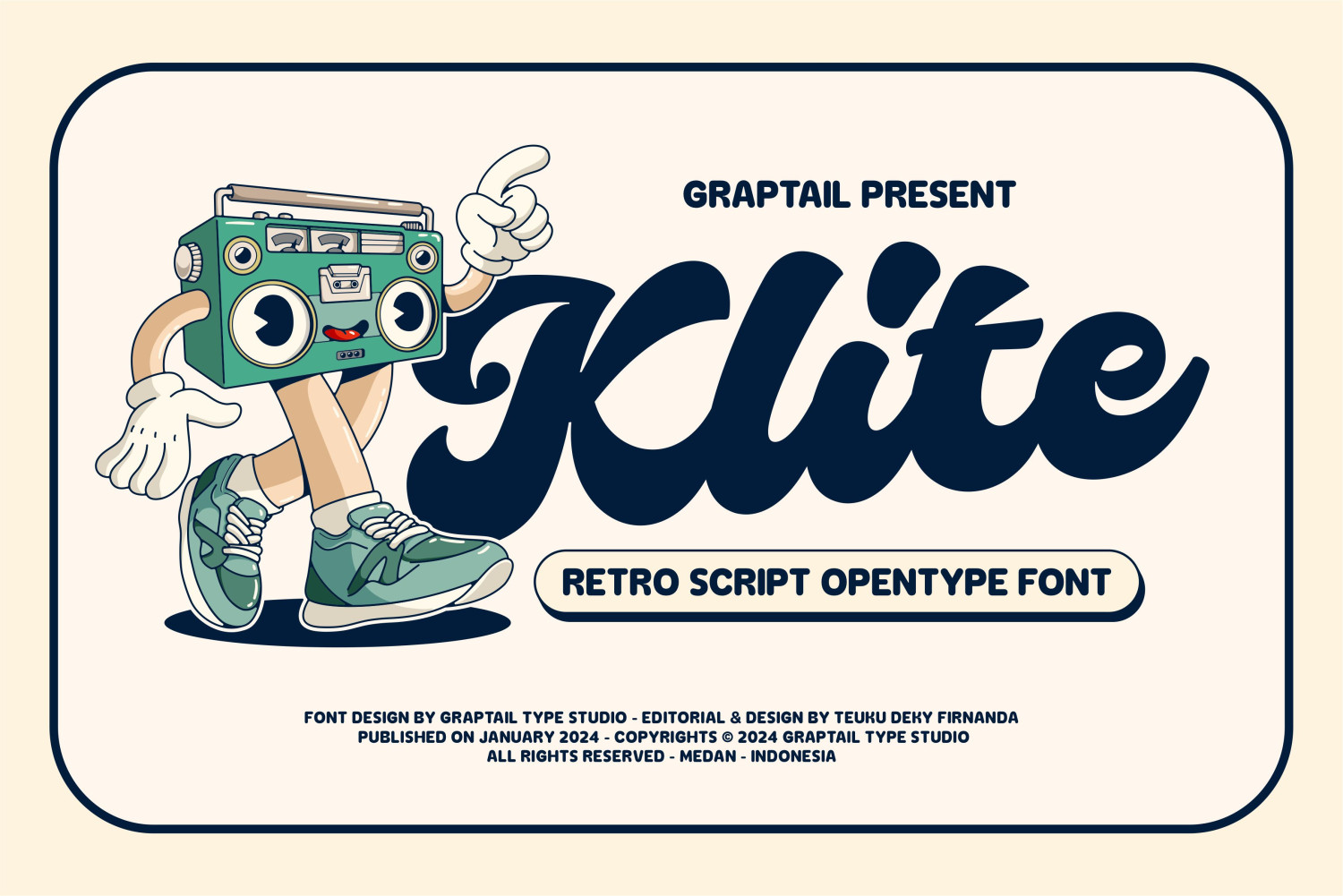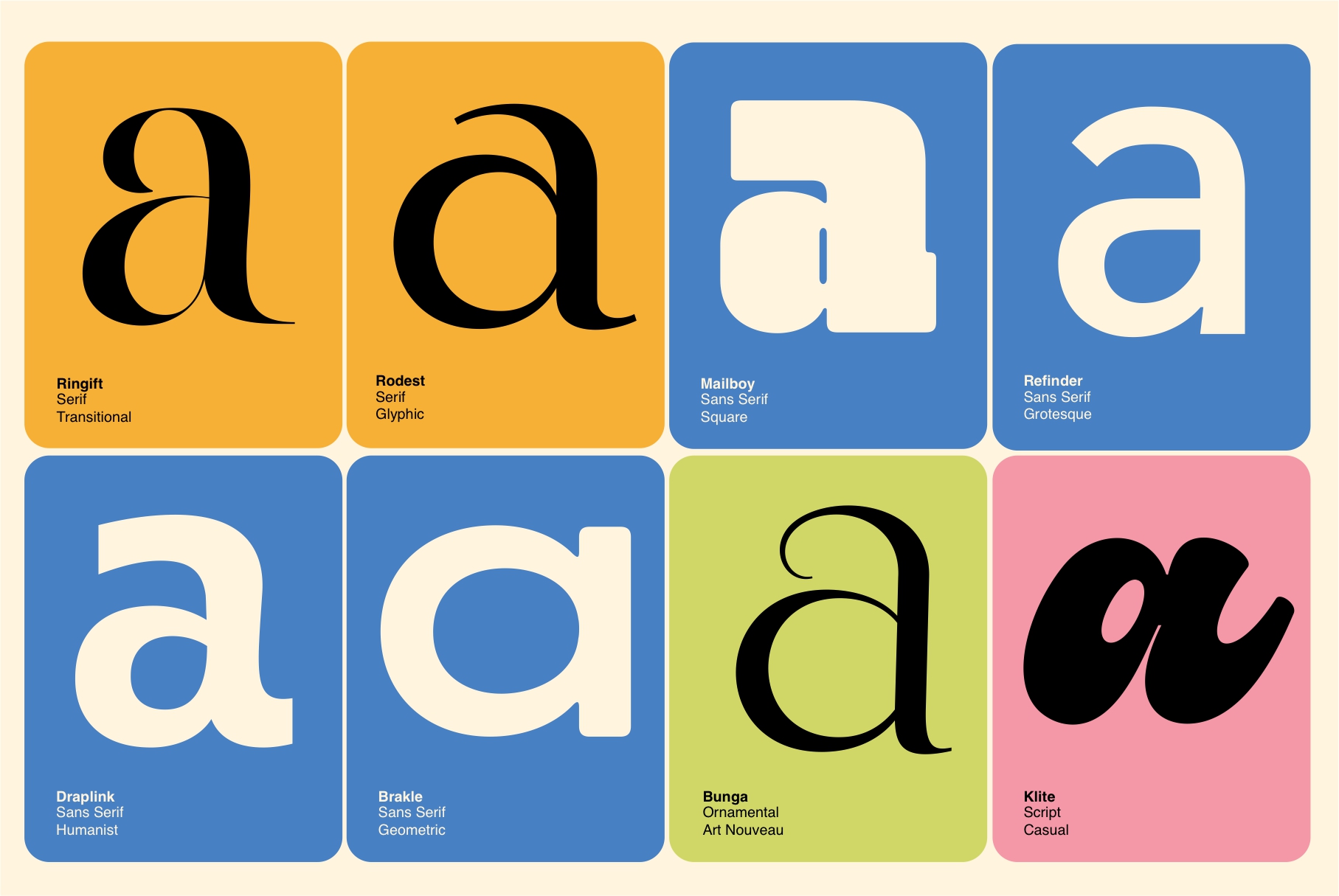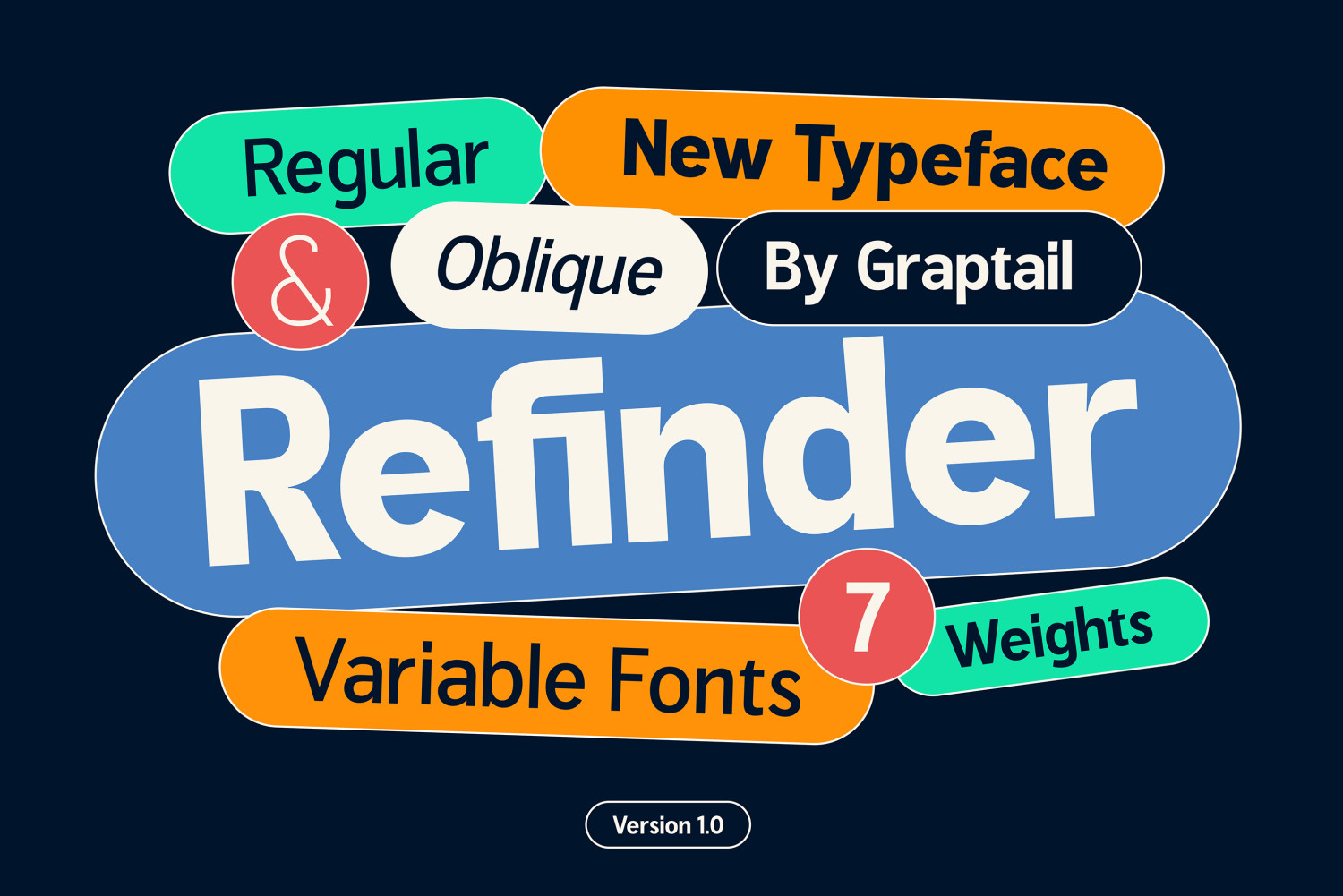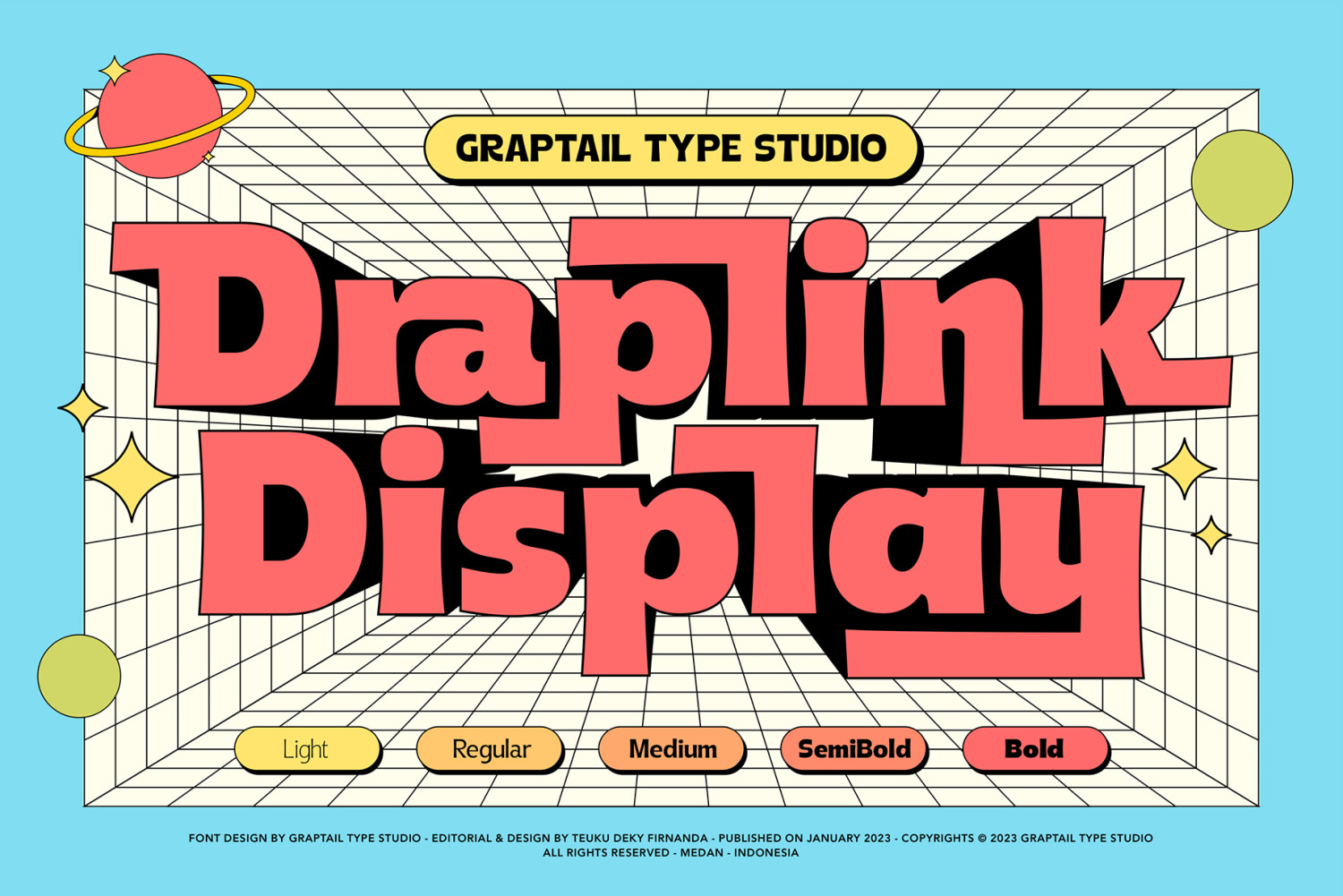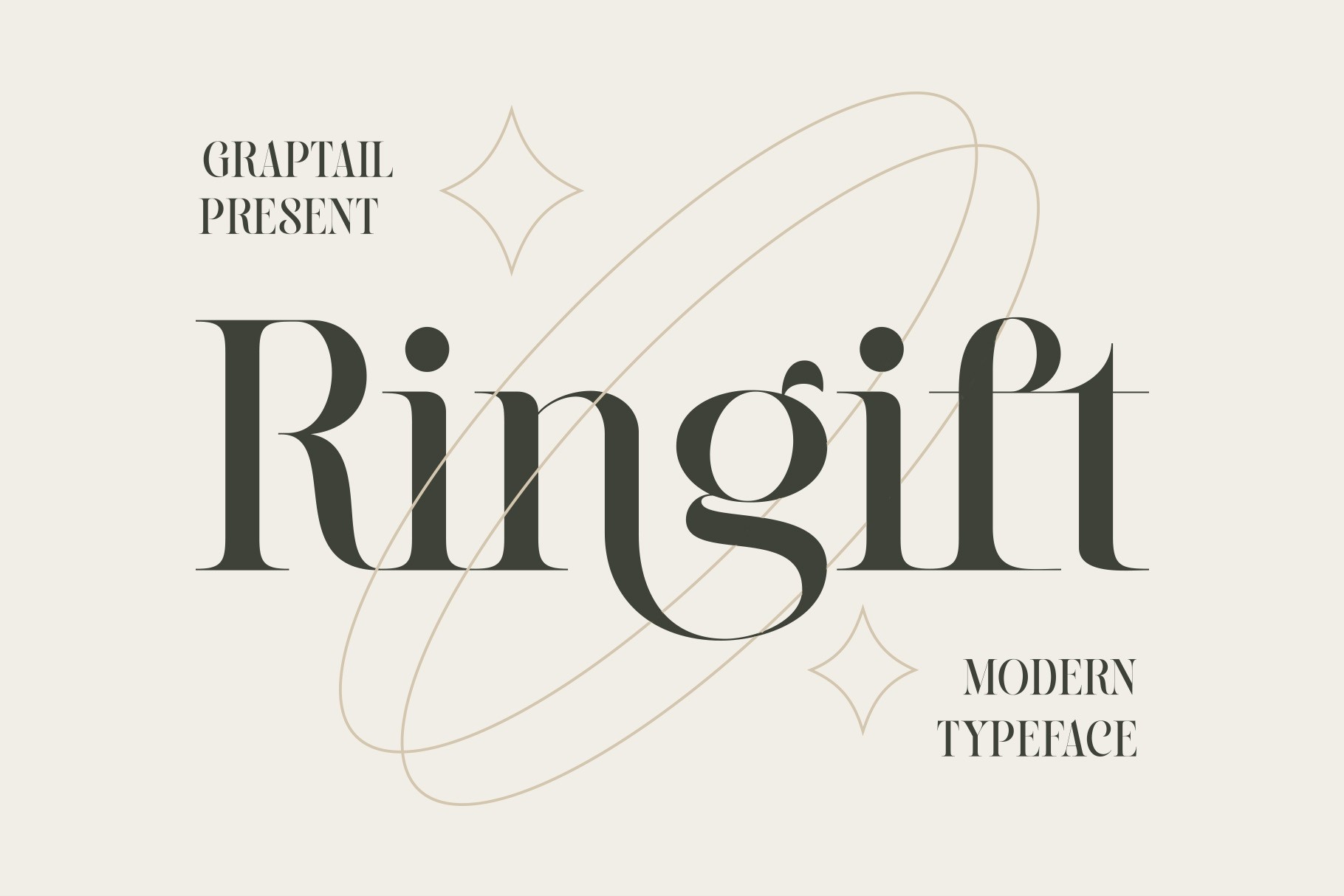
Typeface Classification: Understanding the Variety of Fonts in Design
In the world of graphic design and typography, typeface is a key element that plays a vital role in visually conveying messages. But did you know that typefaces come in various types and classifications? Understanding typeface classification will help you choose the right font for your diverse design needs.
What is a Typeface?
Before discussing typeface classification, it's important to understand what a typeface is. A typeface is the visual design of a family of letters. It includes various characters such as letters (uppercase and lowercase), numbers, punctuation marks, and symbols. Each typeface has unique characteristics that distinguish it from other typefaces.
Why is Typeface Classification Important?
Typeface classification helps designers and typographers to:
Commonly Known Typeface Classifications
There are several commonly known typeface classification systems. One of them is a classification based on the presence or absence of serifs on the letters. Here are some of the most common typeface classifications:
1. Ringift: Serif typefaces have distinctive small lines or strokes called "serifs" at the ends of their letters. Serifs are often associated with a classic, formal, and elegant impression.
2. Refinder: Sans-serif typefaces do not have serifs at the ends of their letters. Sans-serifs are often associated with a modern, clean, and minimalist impression.
3. Klite: Script typefaces resemble handwriting or calligraphy. Scripts are often used for designs that require a personal, elegant, or romantic touch.
4. Draplink: Display typefaces have unique and decorative designs. Displays are often used for titles, logos, or designs that require special attention.
Understanding typeface classification is important knowledge for graphic designers and typographers. By understanding the differences and characteristics of various types of fonts, designers can choose the right typeface for their diverse design needs, create a harmonious look, and effectively convey messages.